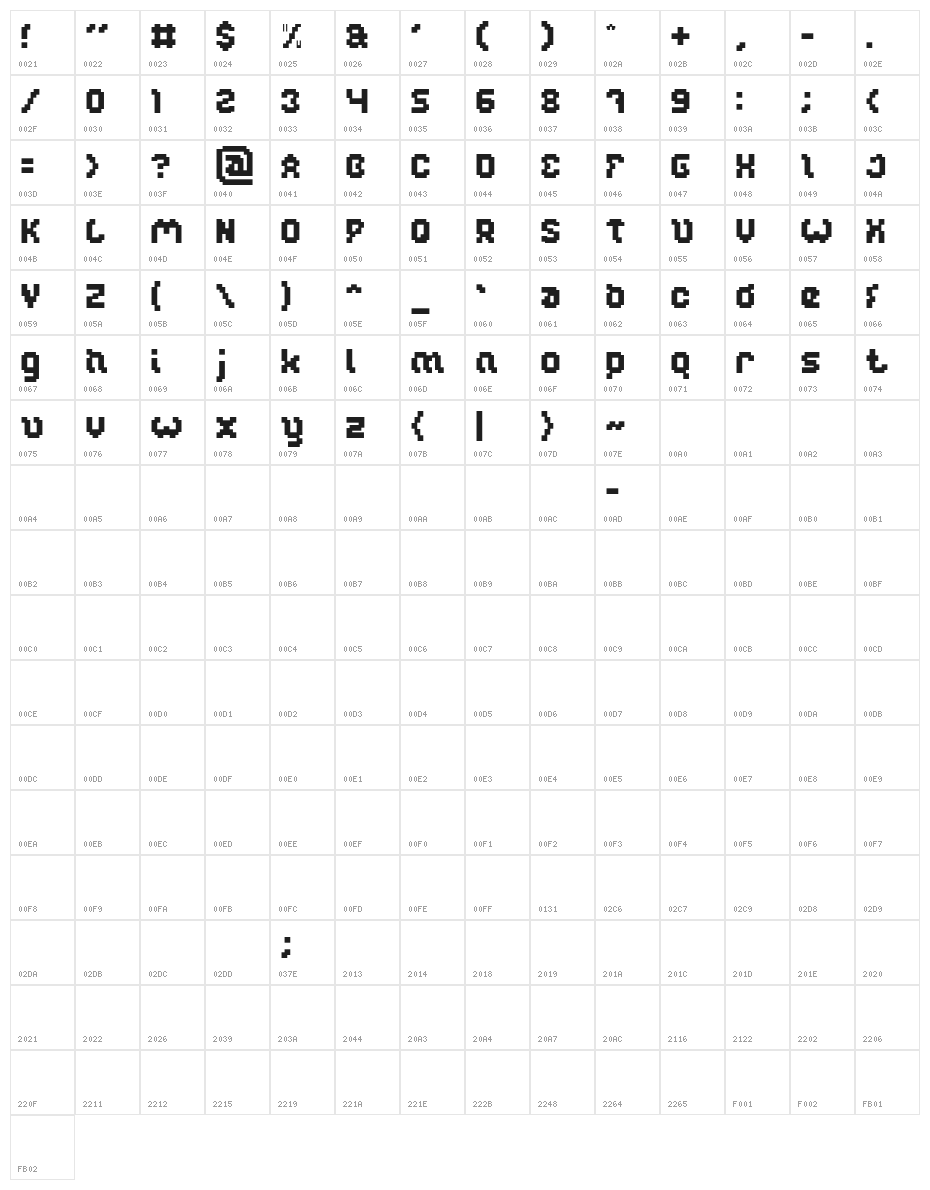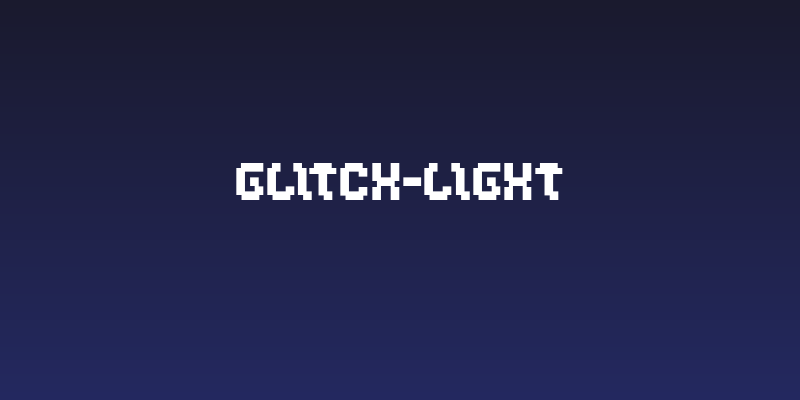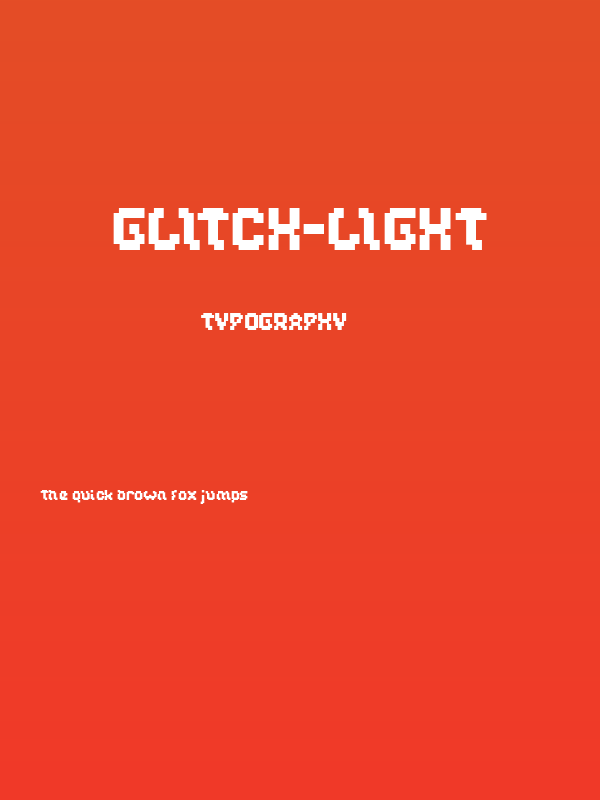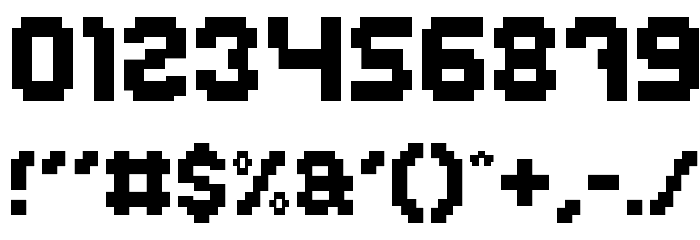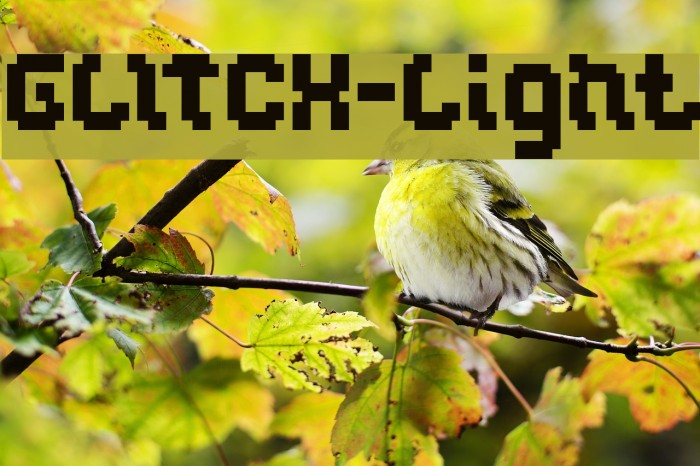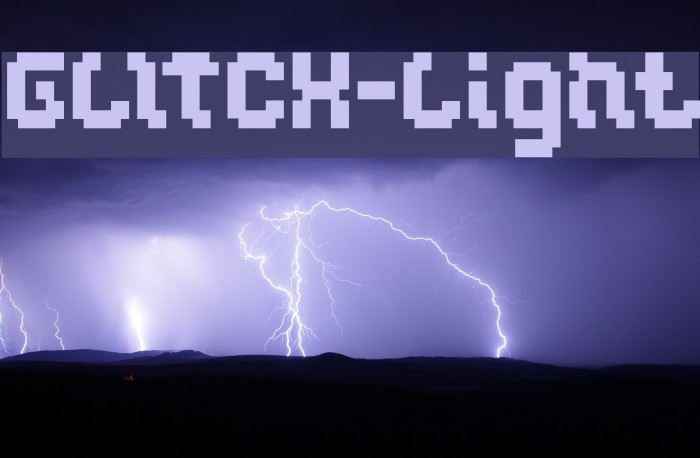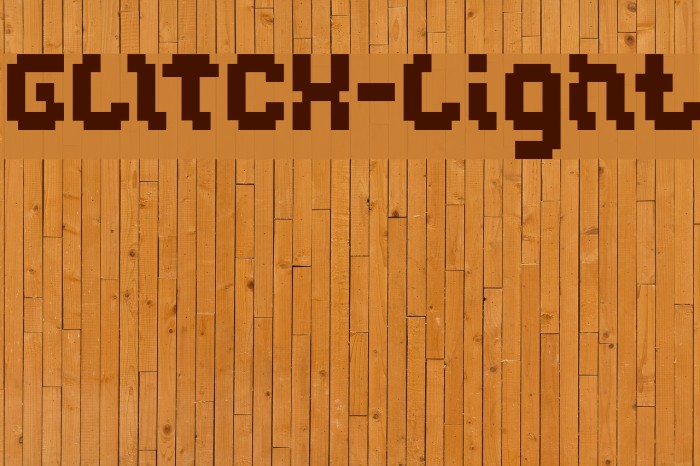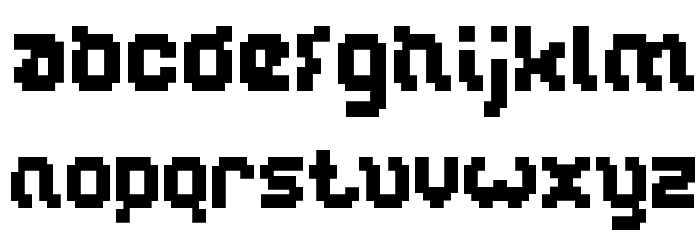
GLITCH-Light Font
GLITCH-Light Description
This font features a bold, pixelated design reminiscent of early digital displays and retro video games. Each character is constructed with a blocky, grid-like structure, giving it a distinct, nostalgic feel. The uppercase and lowercase letters maintain a consistent height, enhancing the uniformity of the typeface. Numbers and special characters follow the same pixelated style, ensuring a cohesive look across all elements. The font's unique aesthetic makes it stand out, capturing the essence of digital art and retro computing.
GLITCH-LIGHT UPPERCASE
GLITCH-LIGHT LOWERCASE
GLITCH-LIGHT OTHER CHARS